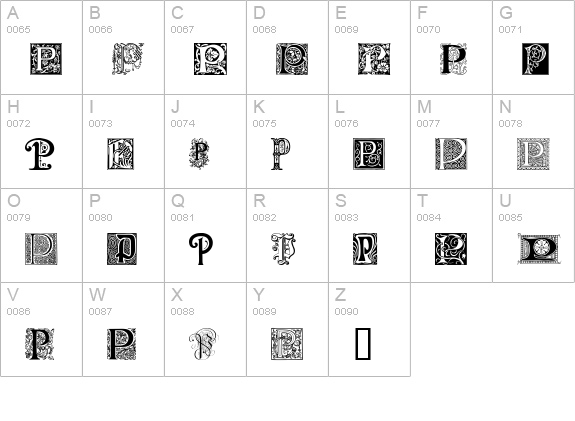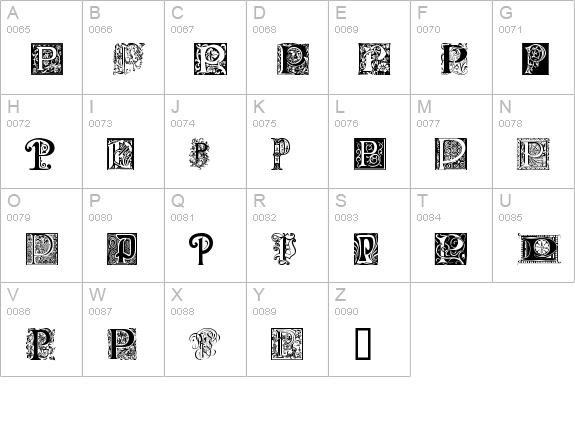
Ornamental Initials P Font Details
Ornamental Initials P font is a stunning and elegant typeface that exudes sophistication and charm. With its intricate ornamental details and graceful curves, this font is perfect for adding a touch of luxury to your designs. The ornate initial letter "P" will make a bold statement and captivate your audience's attention. What sets Ornamental Initials P font apart is its versatility and timeless appeal. Whether you're designing invitations, wedding stationery, branding materials, or any other creative project, this font will elevate your work to new heights. Best of all, Ornamental Initials P font is available for free download at FontsMarket.com. So why wait? Add this exquisite font to your collection today and let your creativity shine with every use.